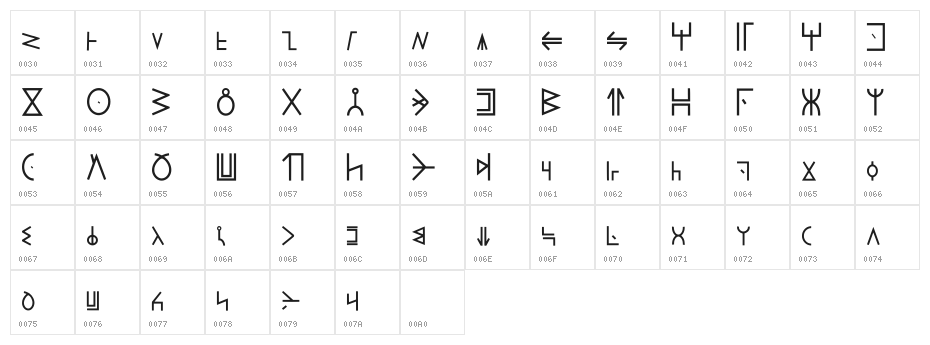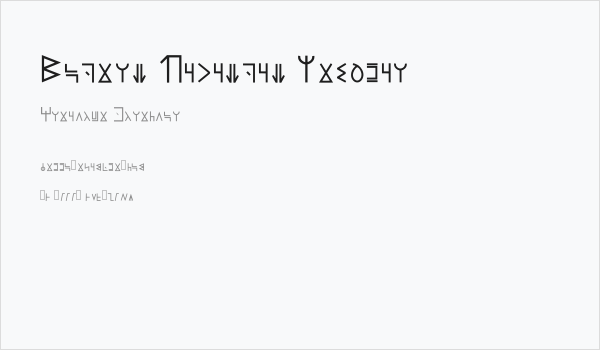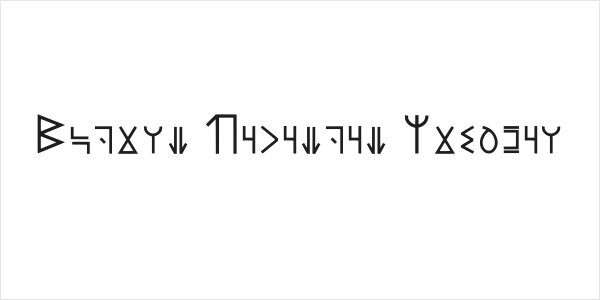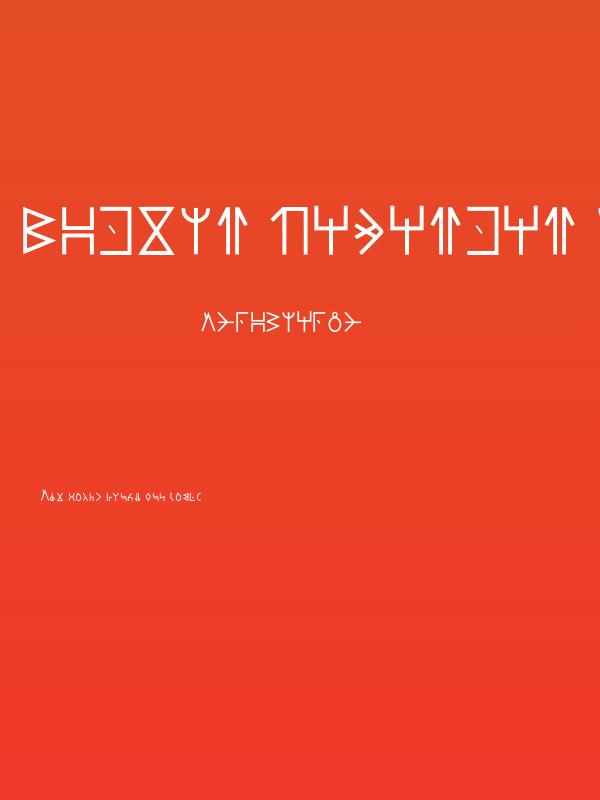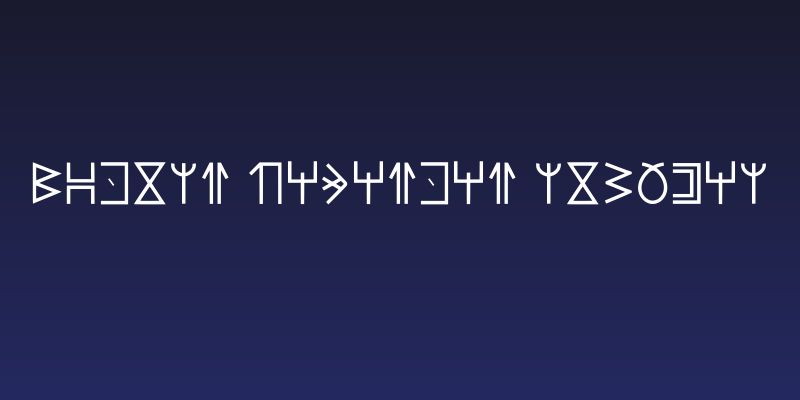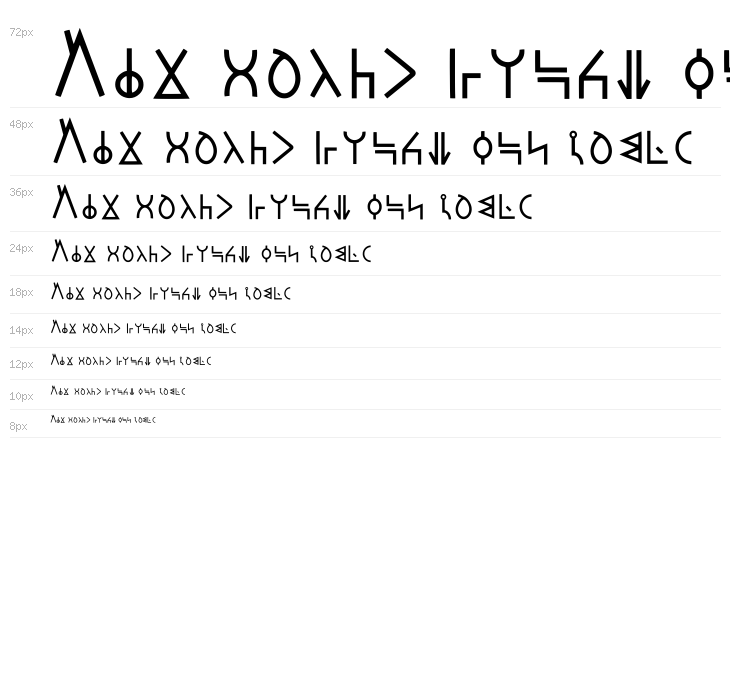
Modern Wakandan Regular Font
Modern Wakandan Regular Description
This font features a unique and futuristic design, inspired by fictional scripts. The characters are composed of geometric shapes and lines, giving it a distinct and modern appearance. Each letterform is crafted with precision, incorporating elements such as circles, triangles, and arrows. The overall aesthetic is both bold and intricate, making it suitable for creative and thematic projects. The font's design is reminiscent of a constructed language, often seen in science fiction and fantasy settings, providing an exotic and mysterious feel.
| Use Case | Logos, Headlines, Themed designs |
| Proposed Projects | Ideal for use in science fiction and fantasy projects, movie posters, video game interfaces, and themed event branding. |